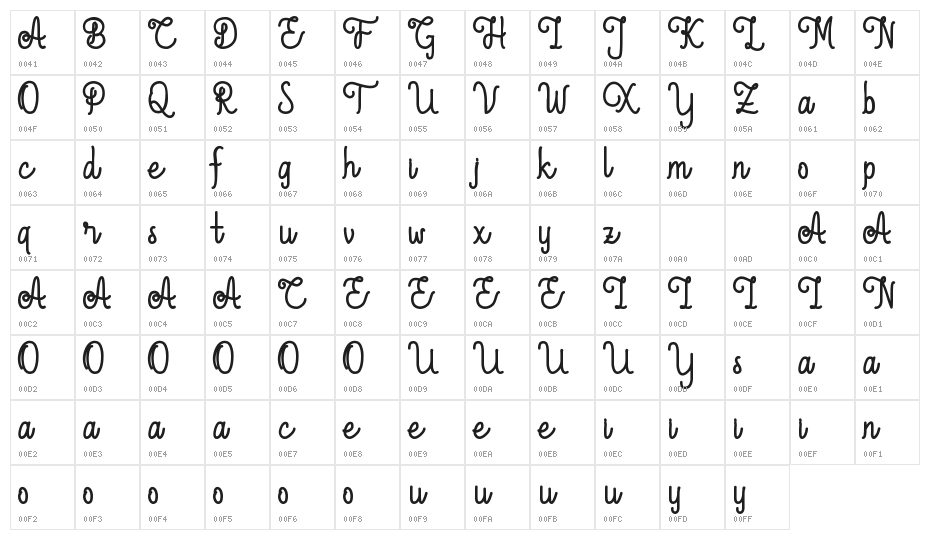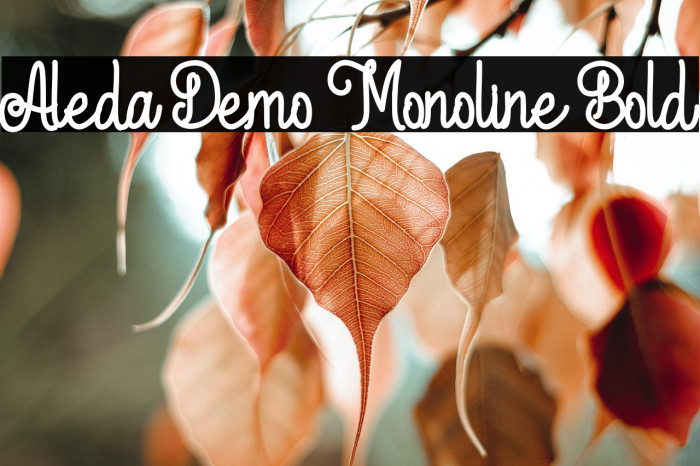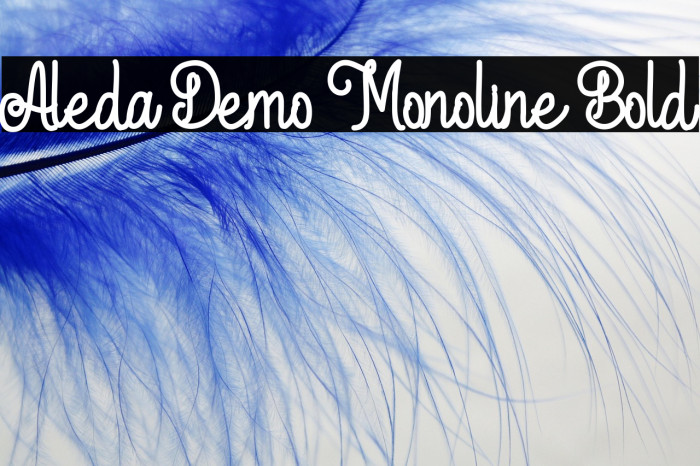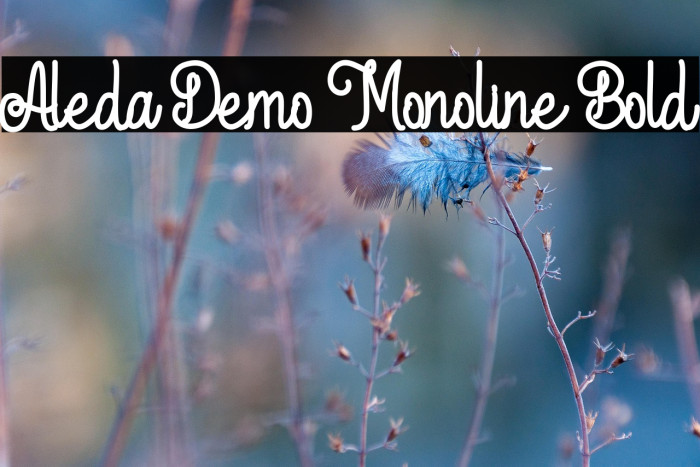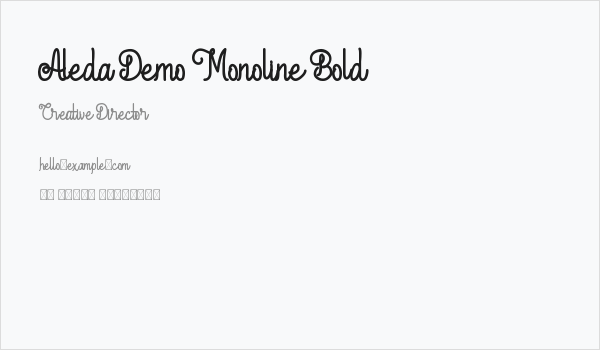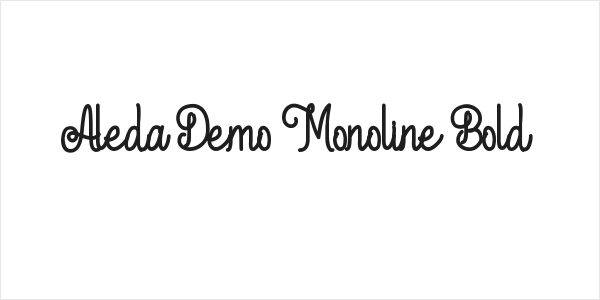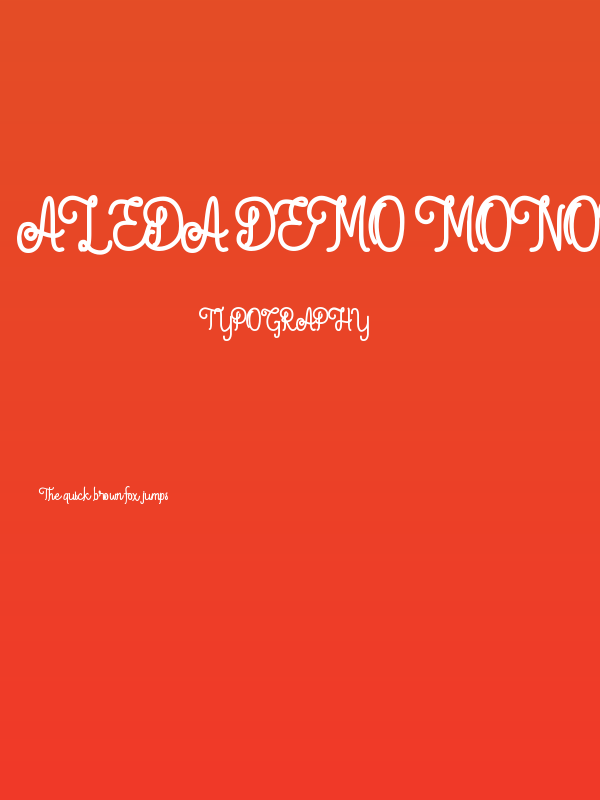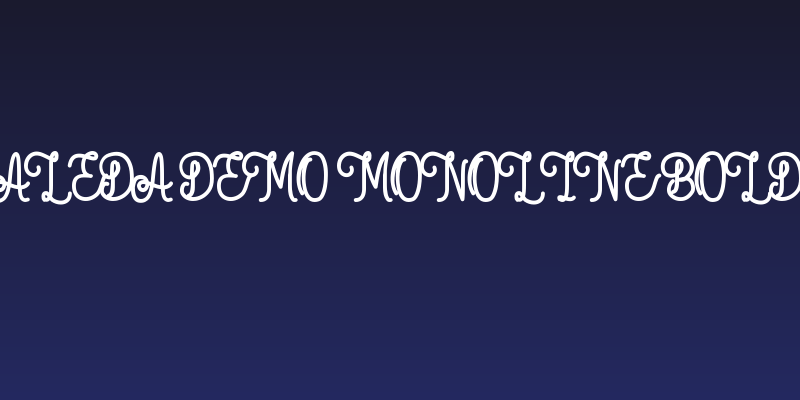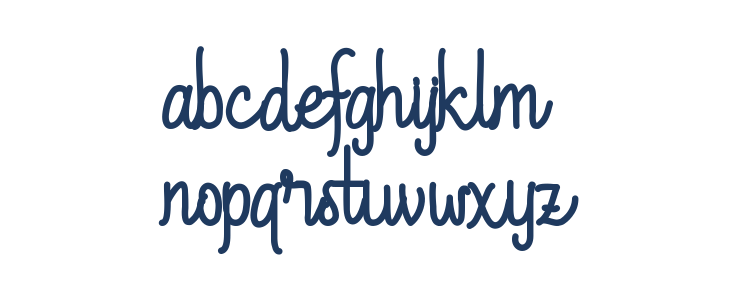
Aleda Demo Monoline Bold Font
Aleda Demo Monoline Bold Description
This font features a playful and whimsical monoline style with bold strokes. The characters are interconnected, giving it a cursive, handwritten feel. The uppercase letters maintain a consistent height, while the lowercase letters exhibit a slight variation in size, adding to the font's charm. The rounded edges and smooth curves contribute to its friendly and approachable appearance. The font's boldness ensures readability, while the monoline aspect provides a clean and modern look. It is well-suited for creative projects that require a touch of elegance and personality.